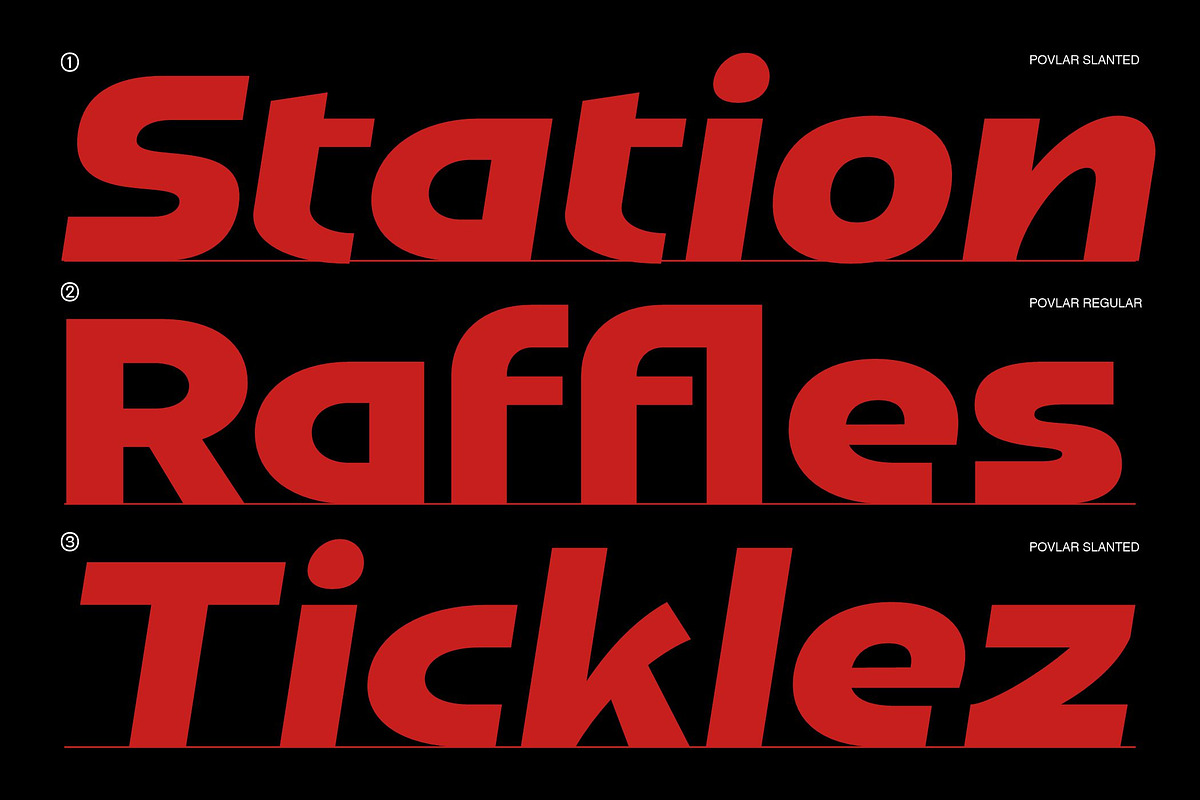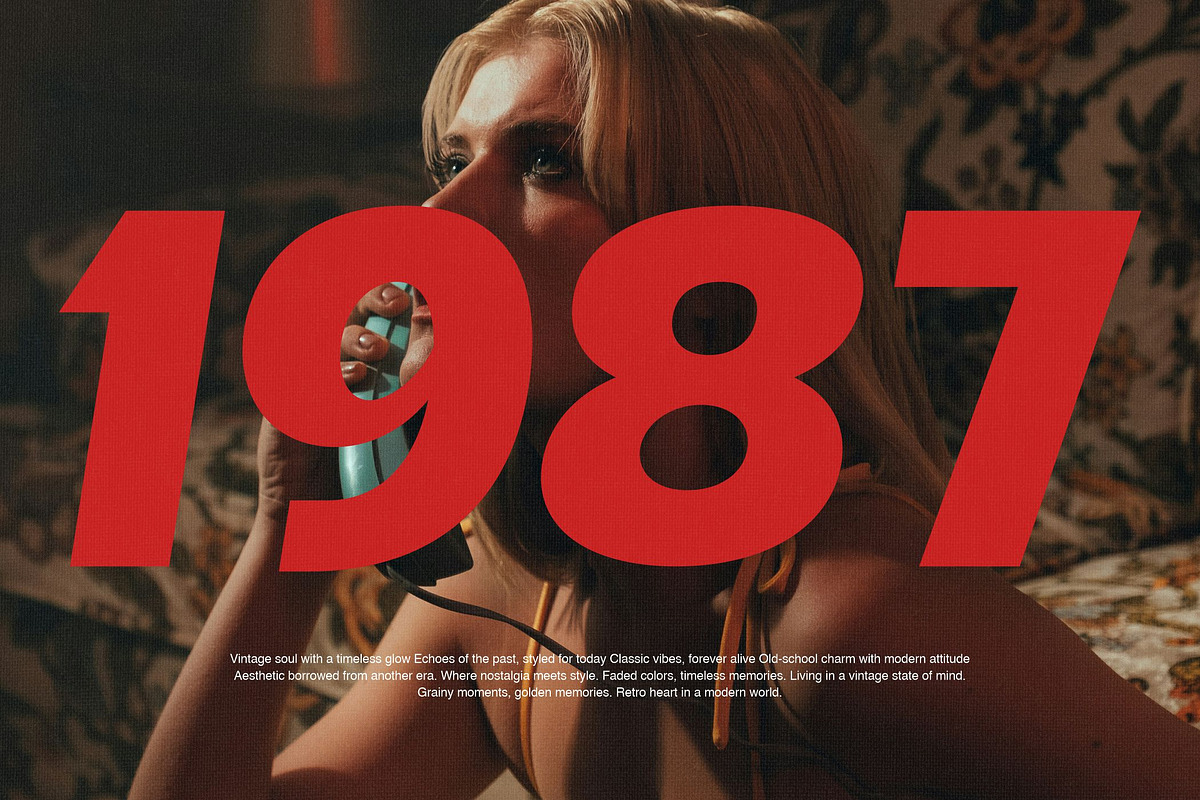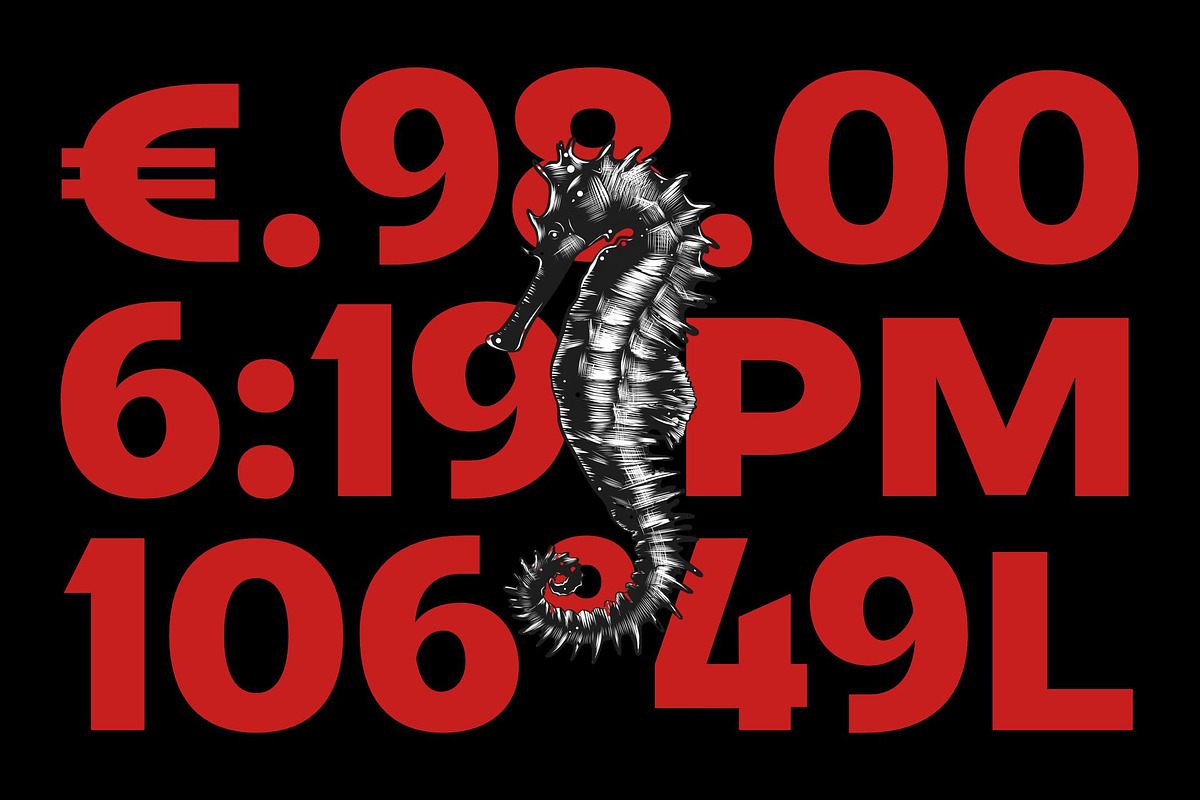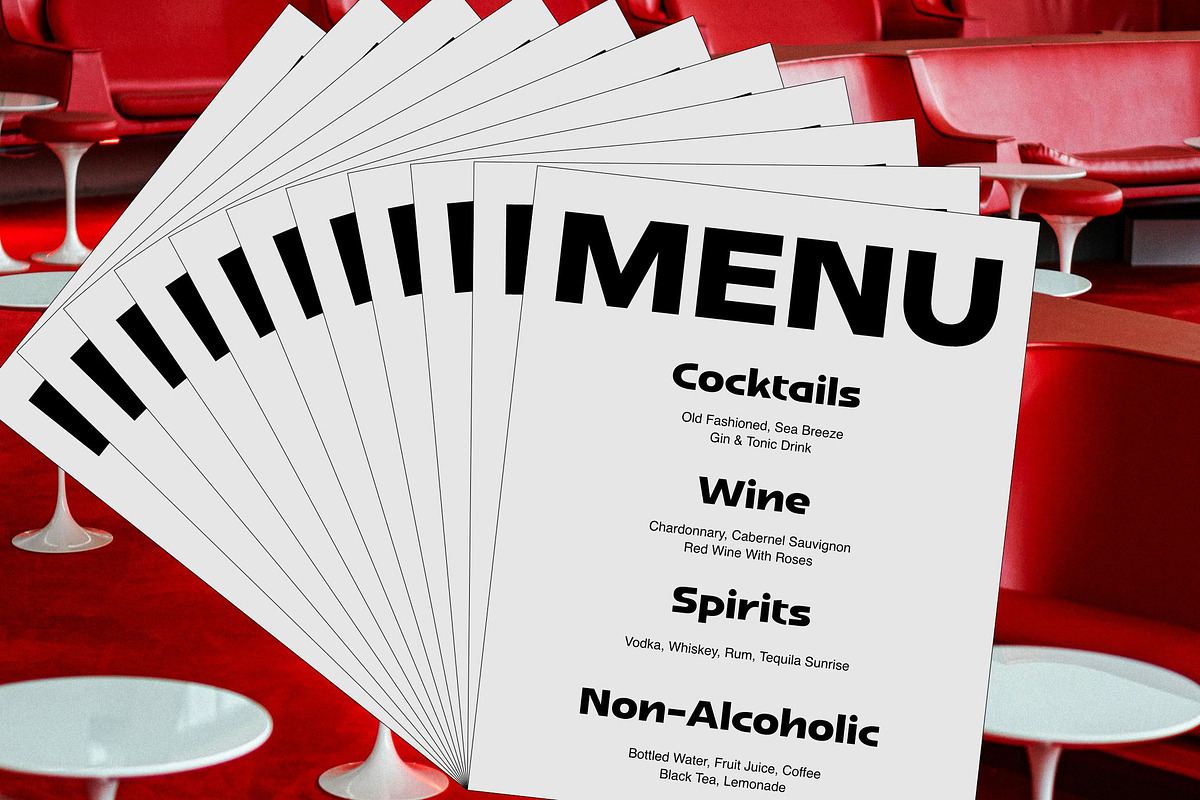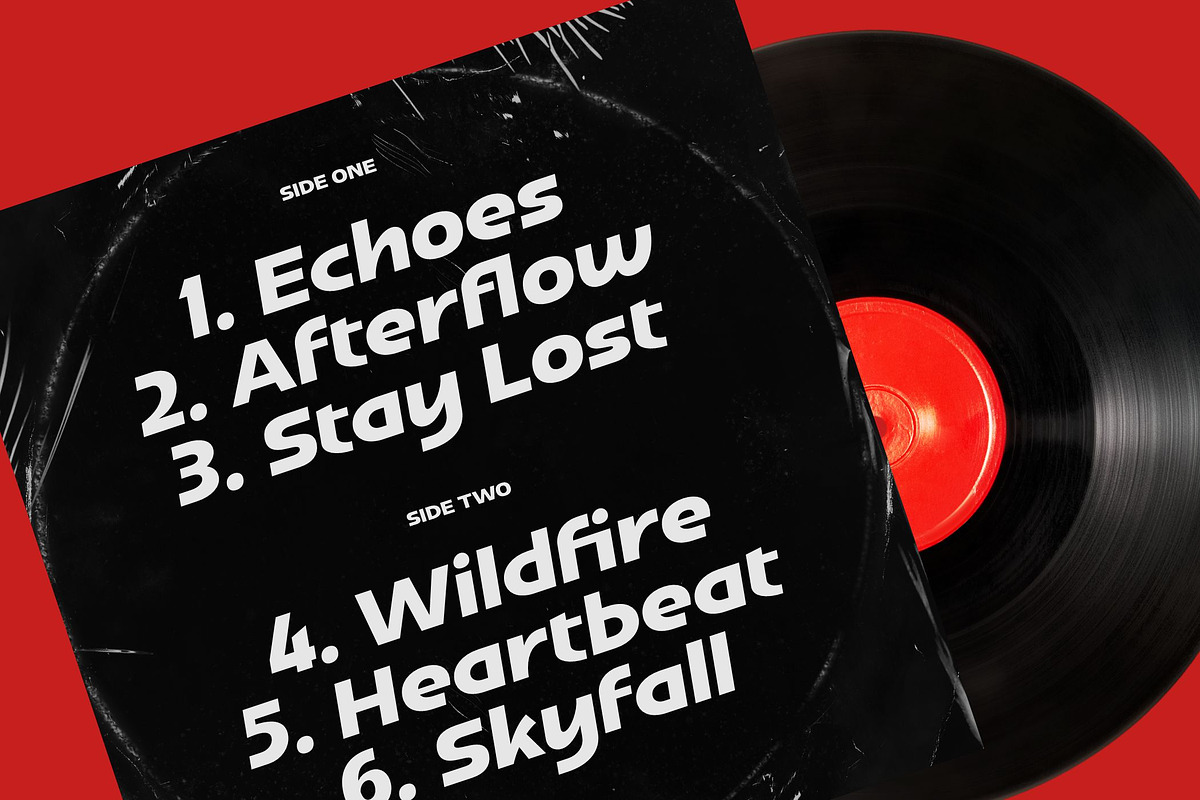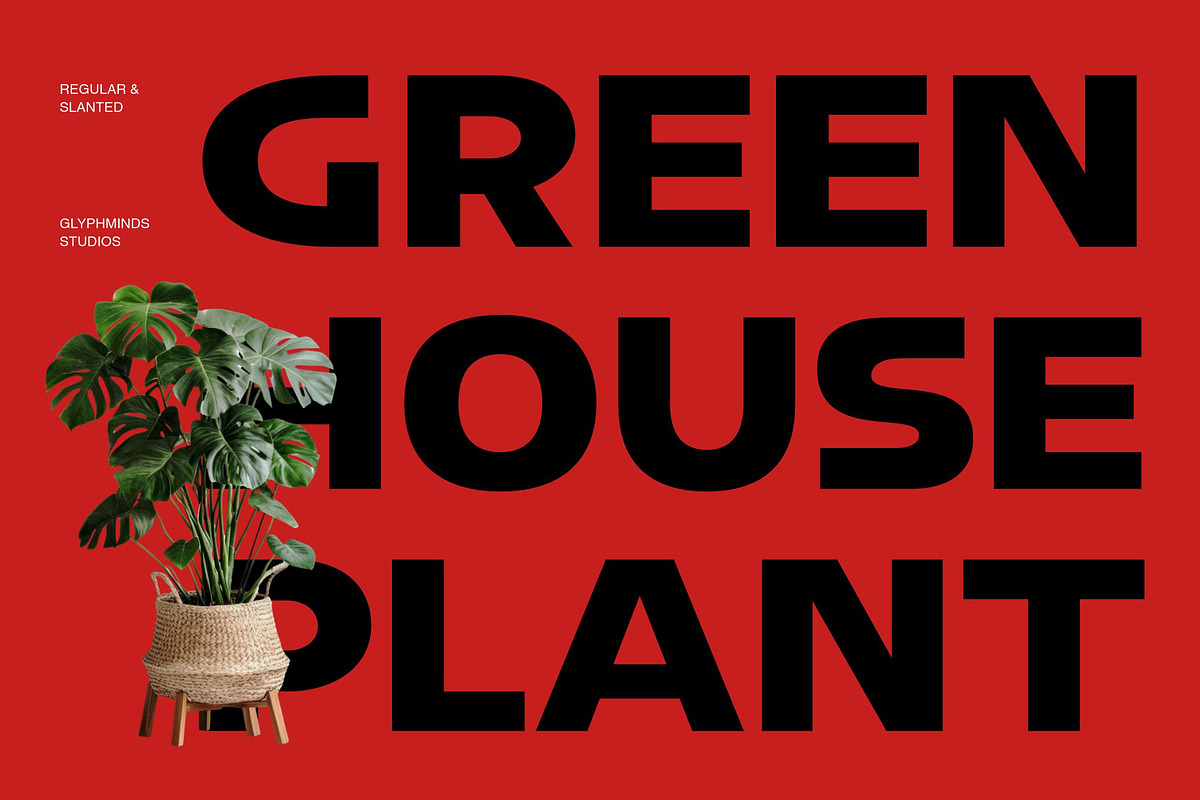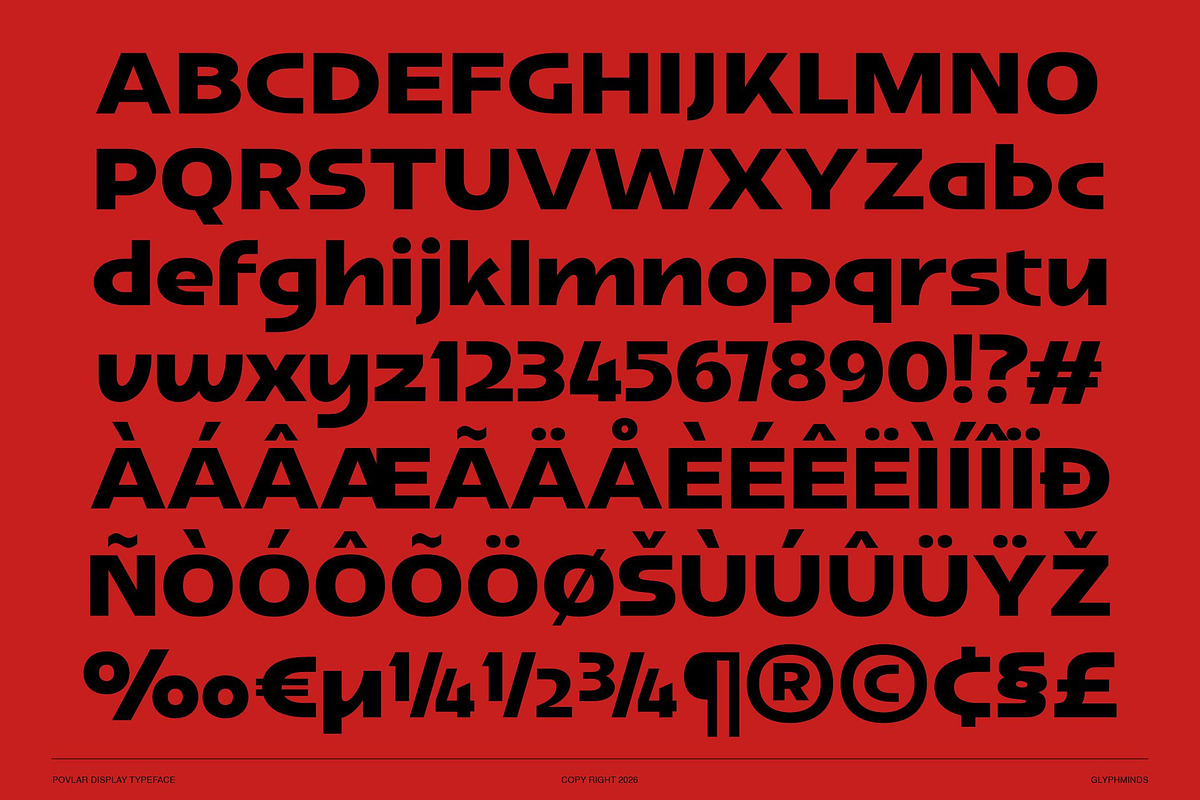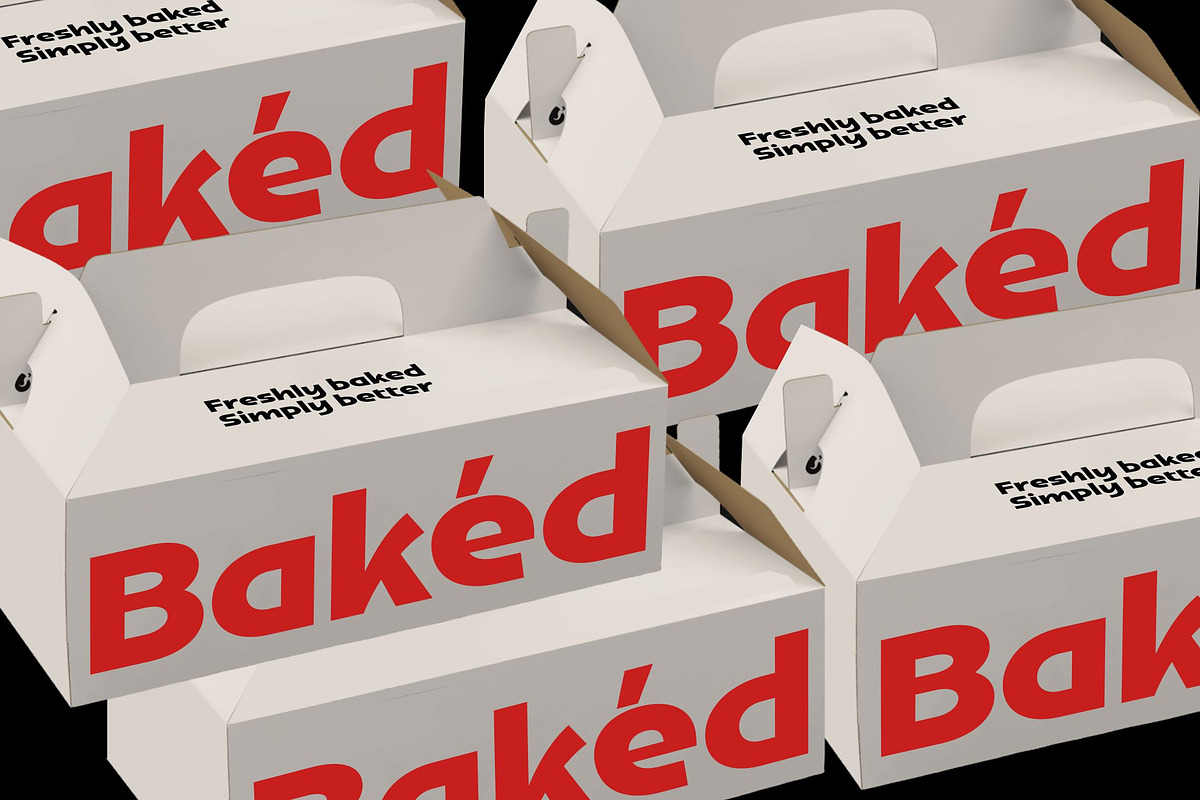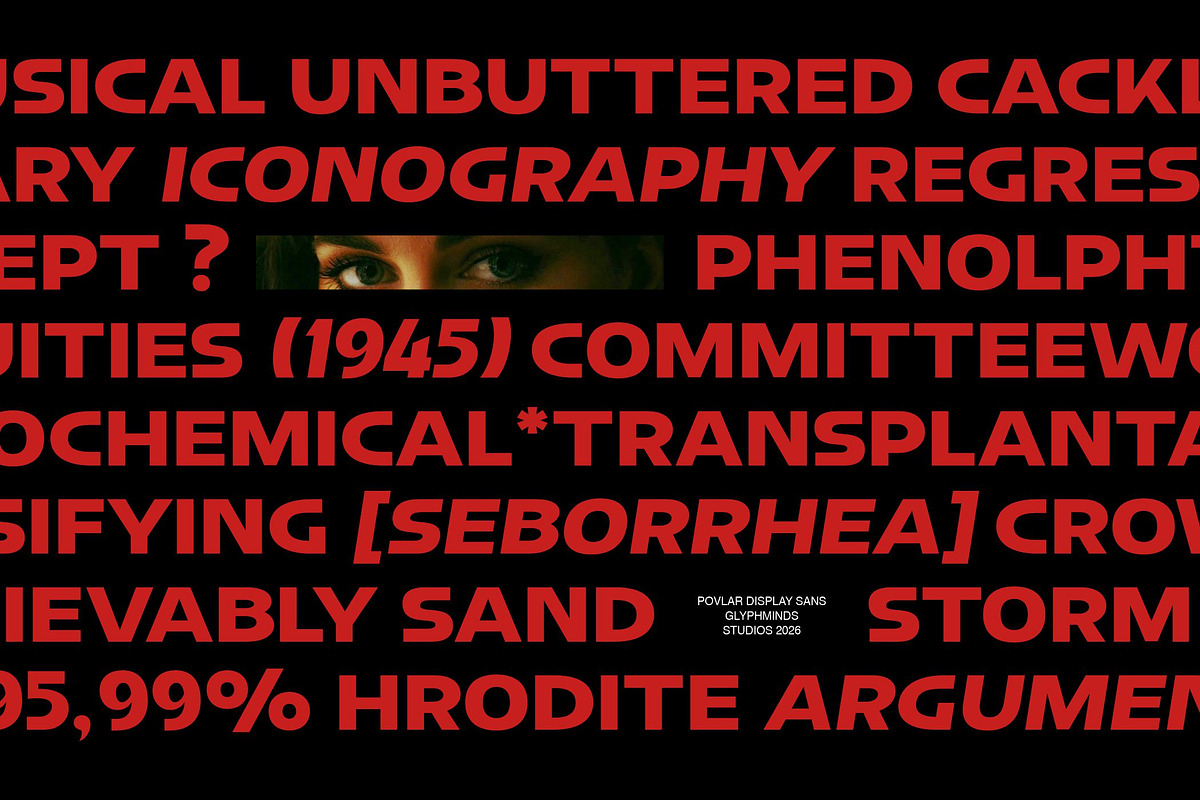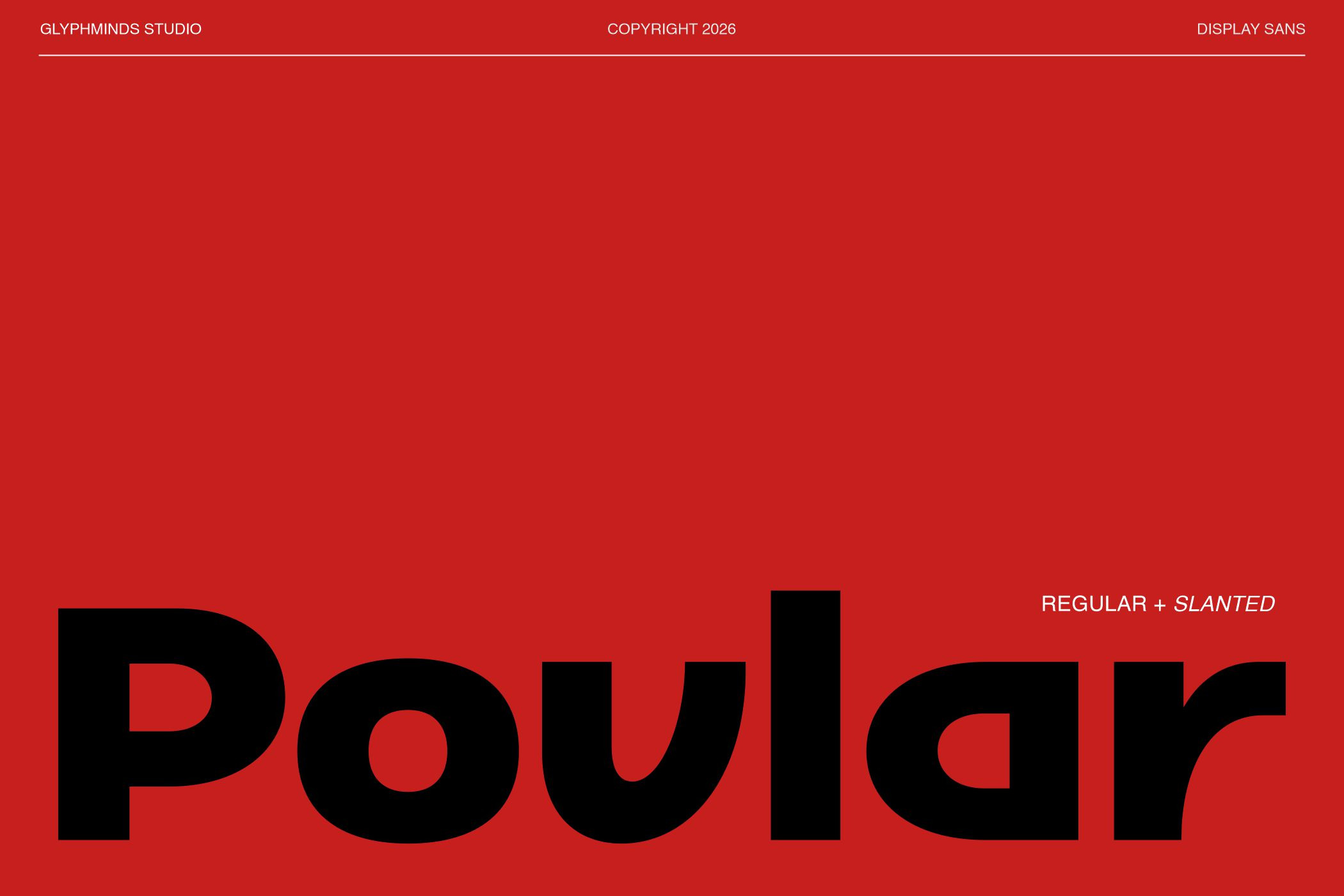
Povlar Font
Povlar is a powerful modern display sans serif font designed to make your designs stand out instantly. With its bold geometric structure, clean curves, and strong visual presence, Povlar is perfect for projects that demand attention and clarity.
This font comes in 2 versatile styles: Regular and Slanted, giving you flexibility to create both strong static layouts and dynamic, energetic typography.
The thick letterforms and smooth rounded shapes make Povlar ideal for branding, posters, headlines, logos, packaging, social media graphics, gaming titles, and modern advertising. Its minimalist yet impactful style works perfectly for designers who want a bold, contemporary, and professional look.
Whether you're designing a brand identity, YouTube thumbnail, streetwear logo, or modern poster, Povlar delivers a confident and eye-catching typographic style.
2 Styles: Regular & Slanted
Strong Display Typeface
Clean Geometric Shapes
Perfect for Headlines & Branding
Modern, Bold, and Minimal Design Style
Easy to Read at Large Sizes
Make your typography louder, stronger, and more memorable with Povlar.